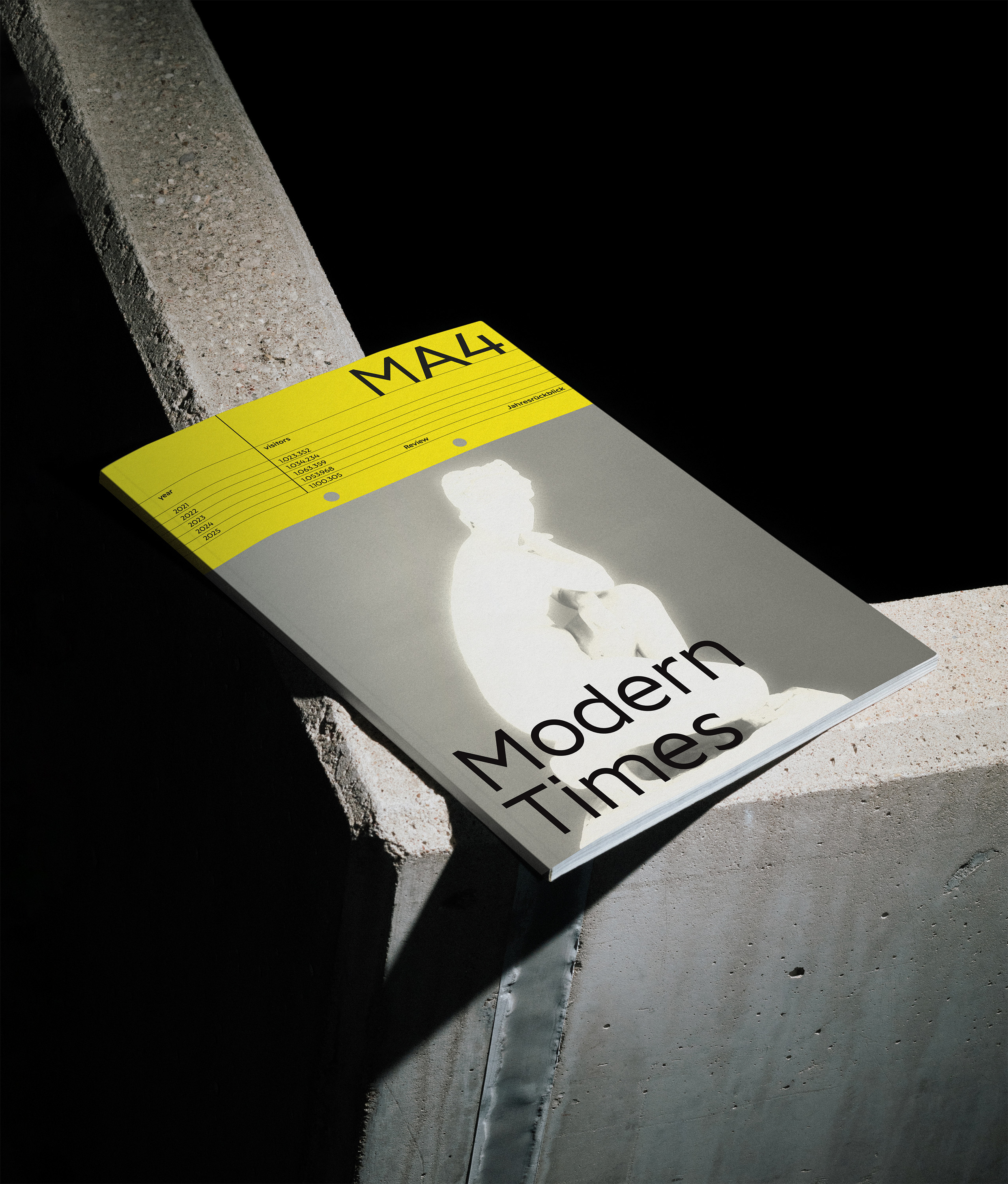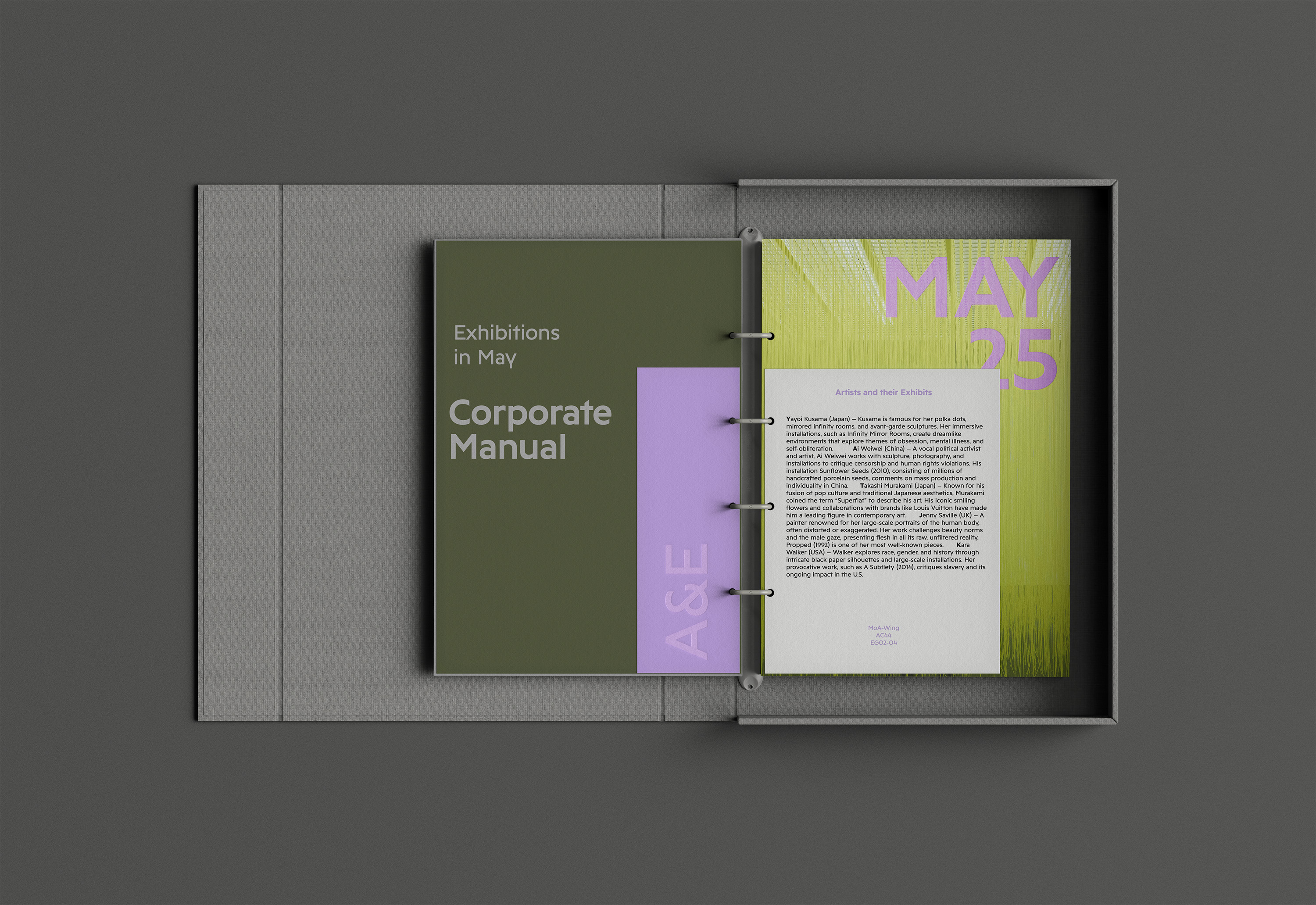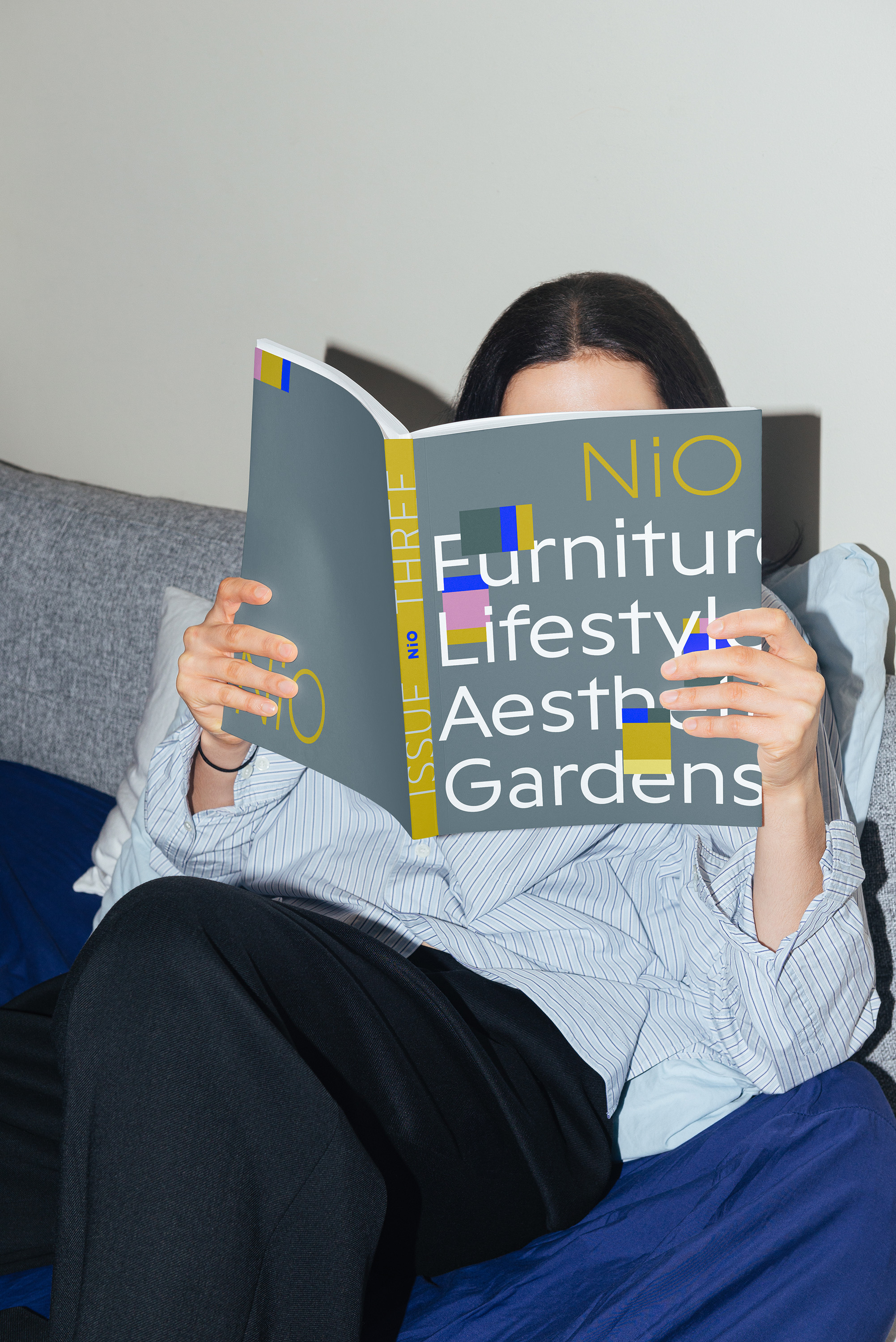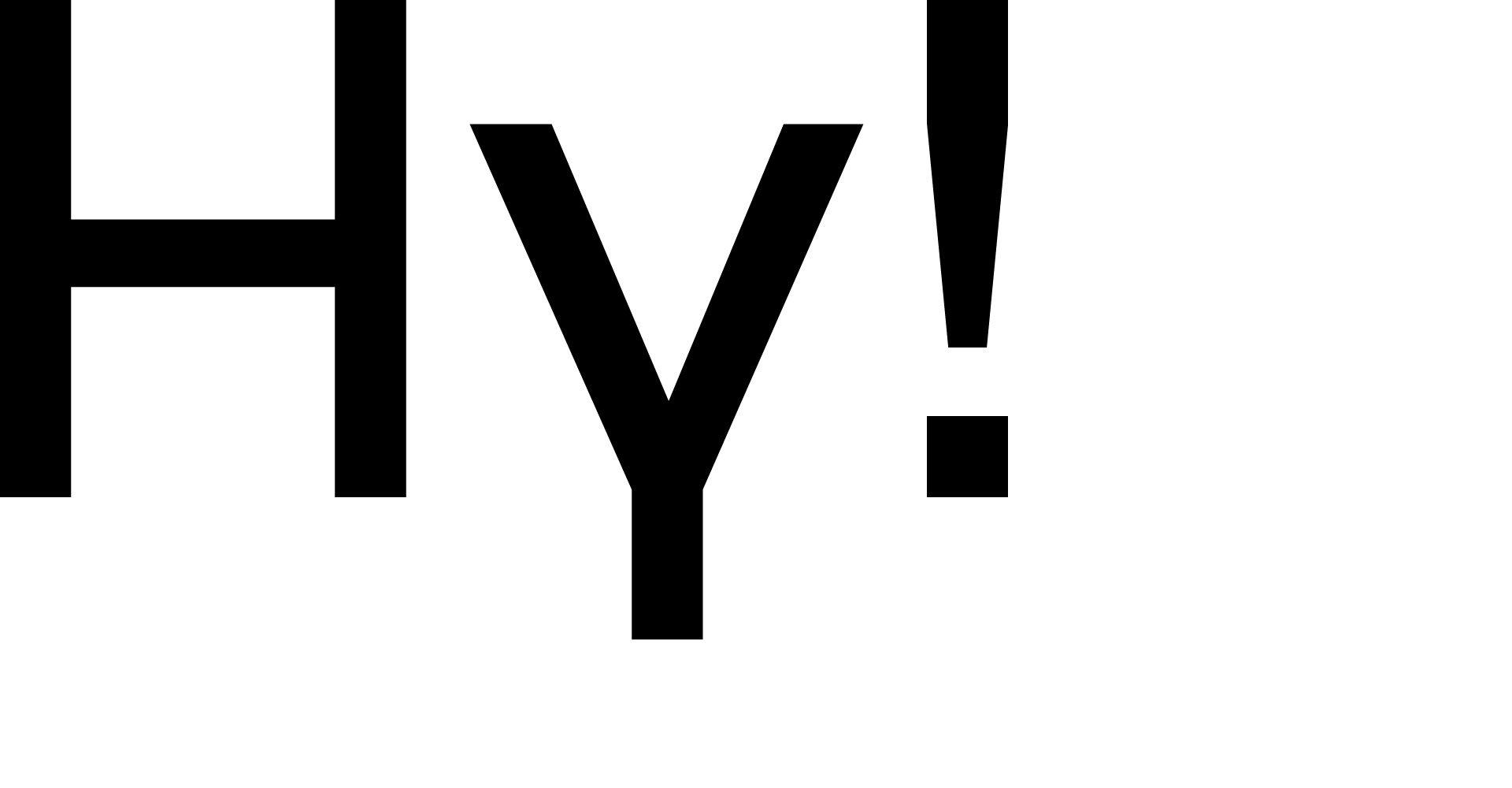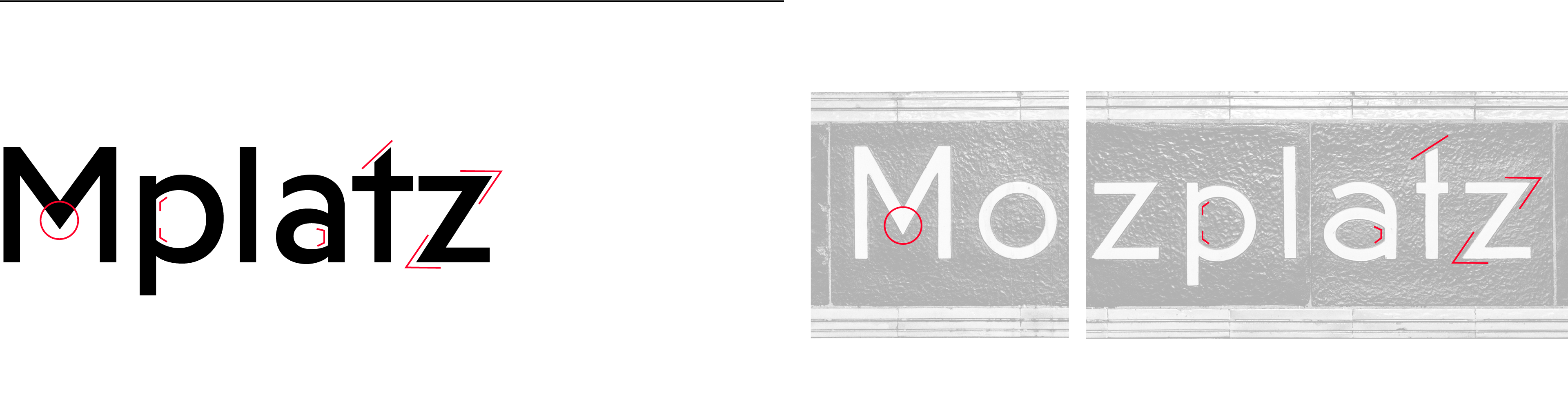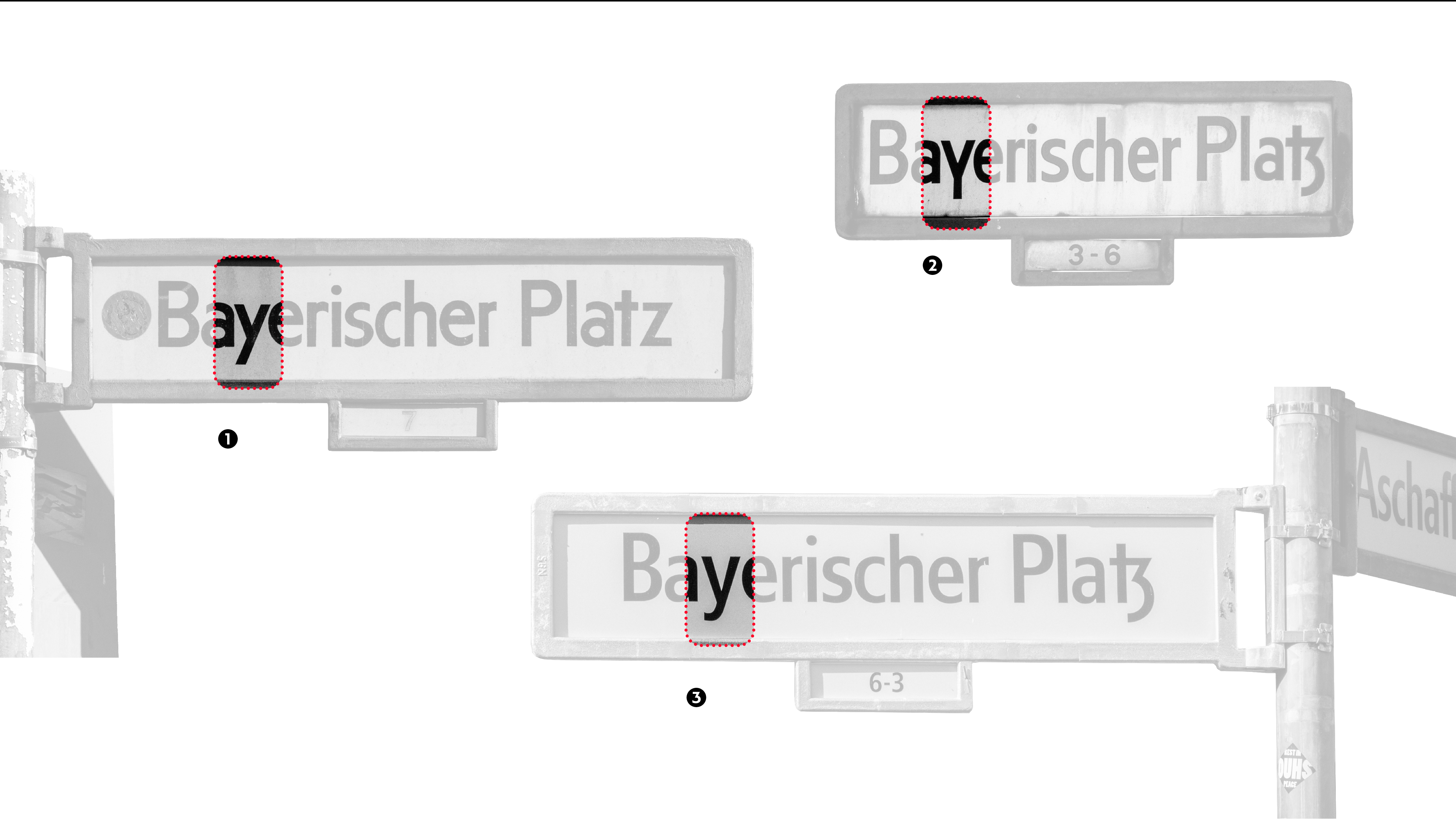
Golt is a contemporary sans serif typeface designed for clarity, character, and versatility. Rooted in the visual culture of Berlin’s metro and street signage, Golt reflects the functional clarity and typographic discipline that define the German design tradition.
The typeface combines a wide, rounded construction with sharply defined vertical strokes, resulting in a balanced texture that performs well across both digital and print environments. Distinctive features—such as the open G, angled t, and characteristic y—add subtle identity without compromising usability. Several letterforms, including the contextual alternates for the German “Eszett” (ß), pay direct homage to Berlin’s street sign typefaces from the early 20th century as well as Andreas Frohloff’s redesign in the 1990s.
Golt is ideal for brands that value typographic integrity and require a sans serif that feels contemporary yet considered. Whether used in headlines, wayfinding, or body text, Golt delivers a confident and cohesive presence—perfect for brands seeking a modern typeface with substance.
Golt—a Berlin typeface in its own right
Synthesizing diverse typographic influences drawn from Berlin’s urban landscape, Golt fuses characteristics from various typographic styles into a coherent and original design system.
Berlin’s historic street signage was originally designed by Herbert Thannhäuser around 1942. Its shapes are inspired by a typeface that was widely used in the early 20th century: Erbar Grotesk, released by Ludwig & Mayer in 1926.
Notably, already the first sketches of Thannhäuser’s street signage typeface features two characteristic ligatures commonly found in Berlin’s street signage: the German Eszett (ß) and the tz ligature.
Golt draws on a range of influences from Berlin’s typographic landscape: straight stroke endings as well as other historic details of Berlins street signage on the one hand, and relatively wide proportions found in historic metro signage (particularly along the U8 line) on the other hand.
The historic lettering at the
Gneisenaustraße metro station served as a reference for the design of Golt’s uppercase G. While Golt features vertical stroke terminals and a more uniform overall appearance, the proportions of the G remain closely aligned with its historical model.
Golt keeps the historic construction of the German Eszett (ß) as a stylistic alternate—in its own proportions, of course. This detail has also been preserved in the 1990s redesign by Andreas Frohloff.
Apart from rather wide proportions, Golt also shares other details with the typeface originally used along the U8 line: sharp corners in M or z, angled top stroke in t, or bevelled joints where round and straight shapes meet.
In addition to the conventional, diagonally descending y①, one of the most characteristic features of the historical typeface used in old Berlin street signs is its lowercase y with a straight descender. ② This alternative construction was incorporated into the development of Golt.
Andreas Frohloff’s 1990s revision displays noticeably more conventional forms like the Frutiger-like a—and a lowercase y with diagonal descenders.③
Although based on a popular design (Erbar Grotesk) the historic design of Berlin’s street signs reveals a lot of interesting details with many glyph-level deviations. This is most notably seen in the use of two totally different proportions of the uppercase G—especially striking when signs with similar names are mounted pretty close to each other.
The lowercase a sometimes features an oval counterpunch①, sometimes the counterpunch features edges where the bowl meets the stem.② Differences can also be seen quite obviously in the proportions of the lower case s: ① displays a rather wide construction that is a lot more closed on the top, whereas ② features a narrower and more open construction.